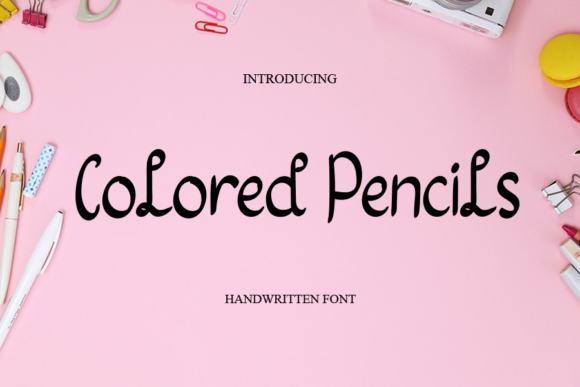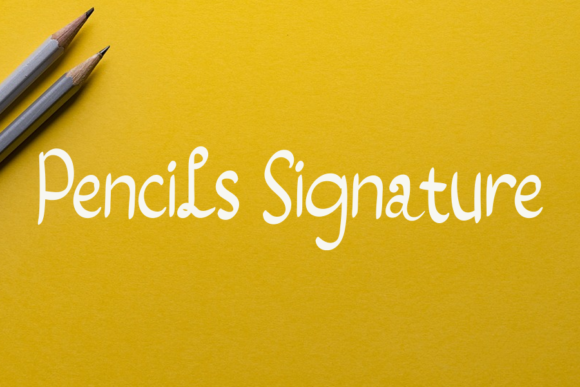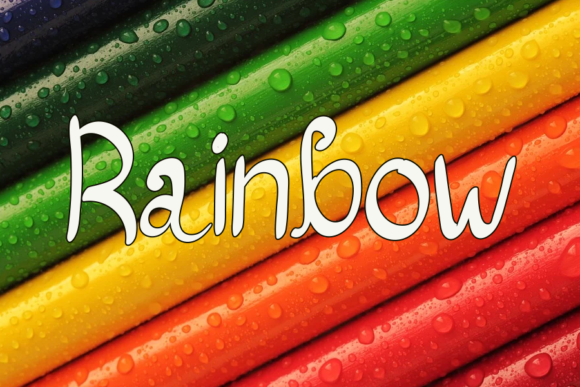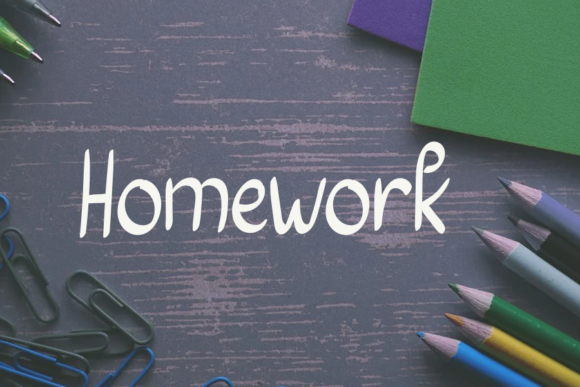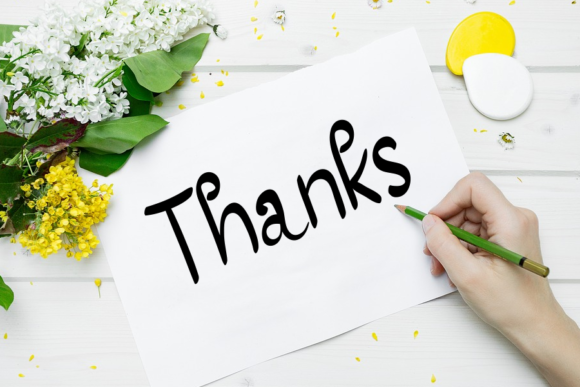
Colored Pencils Font
About Colored Pencils Font
Colored PencilsĀ is a delicate and elegant handwritten font. Its distinct and well balanced letters make this font a masterpiece. Fall in love with its incredibly versatile style and use it to create spectacular designs!